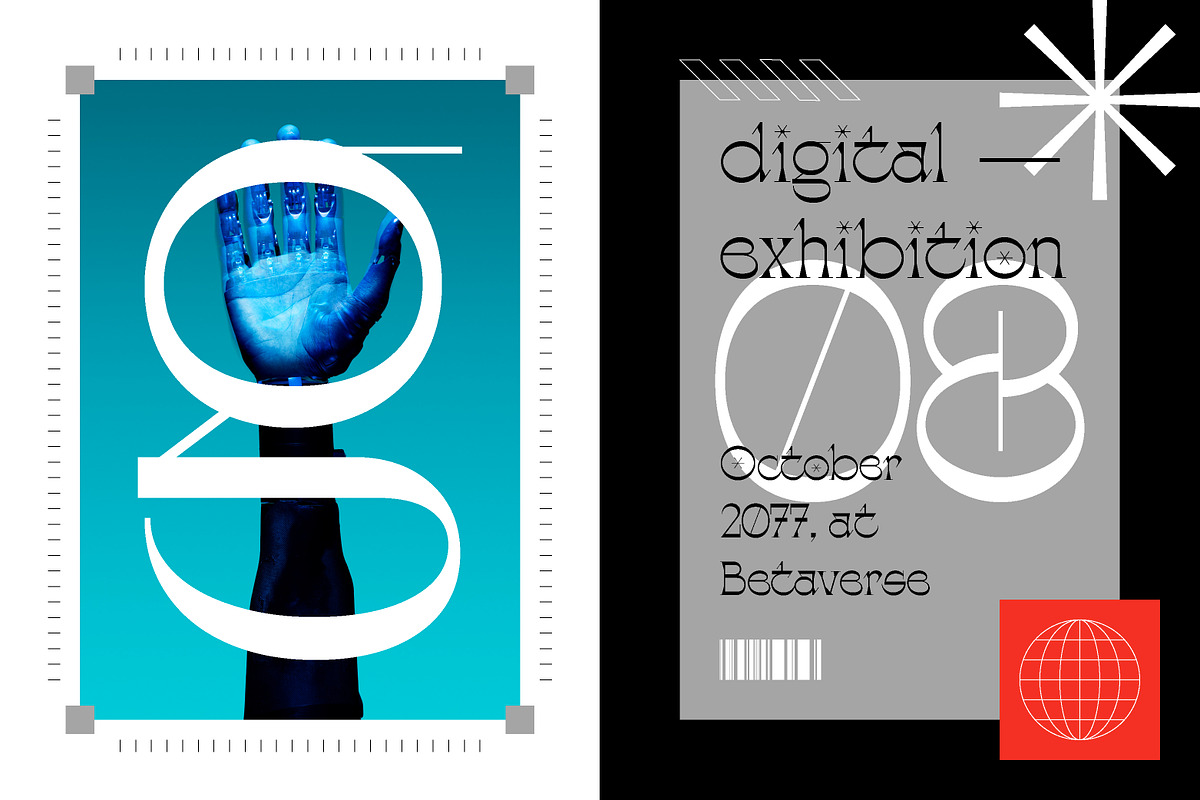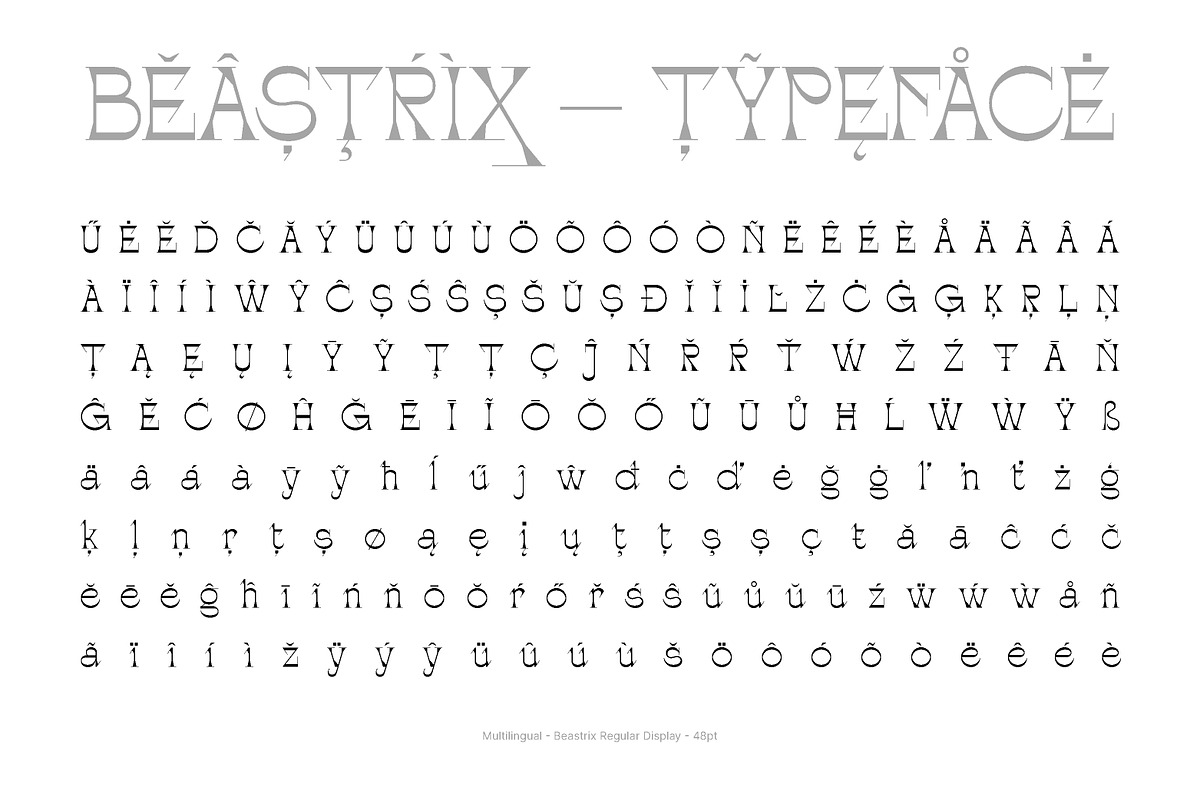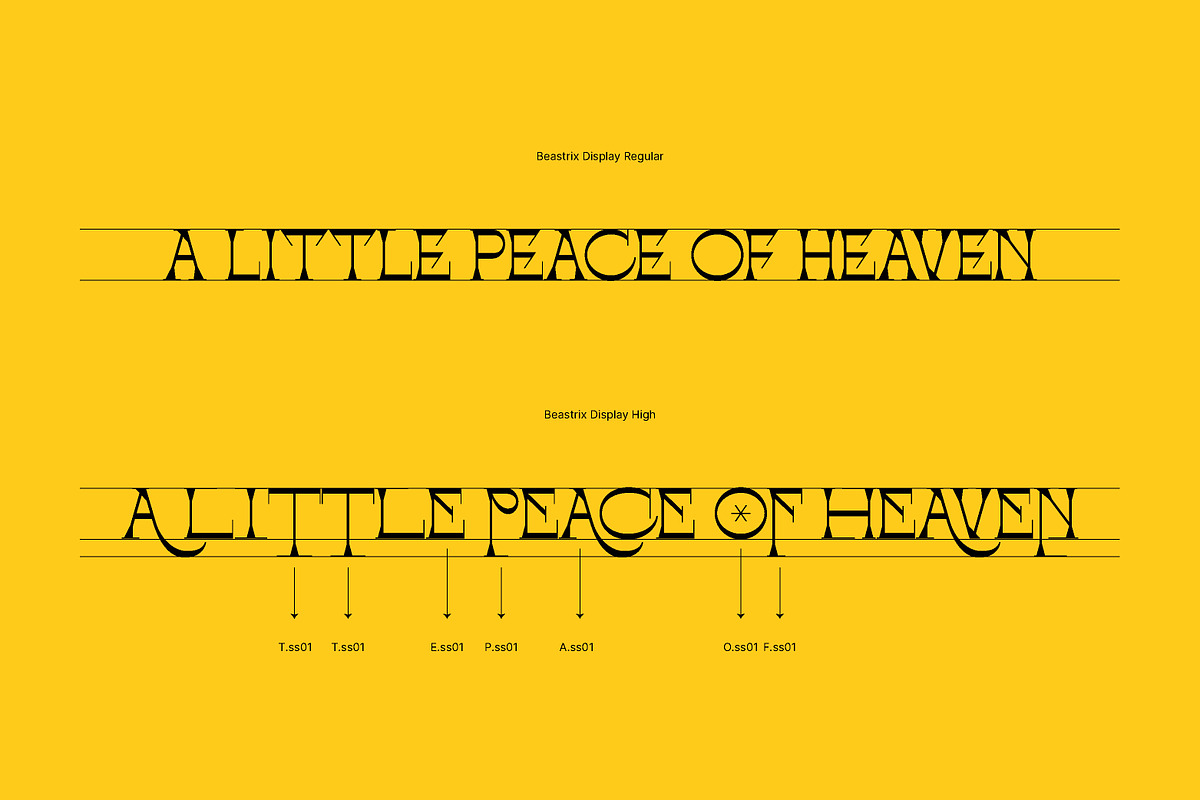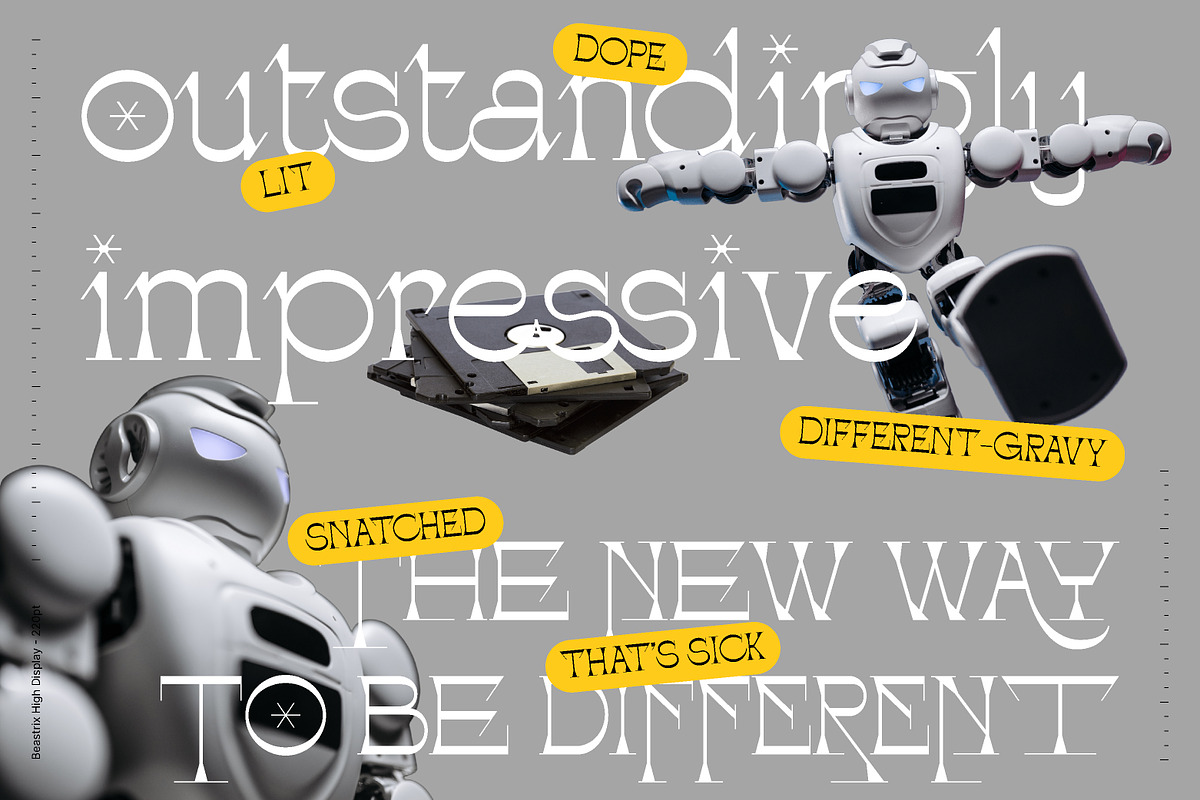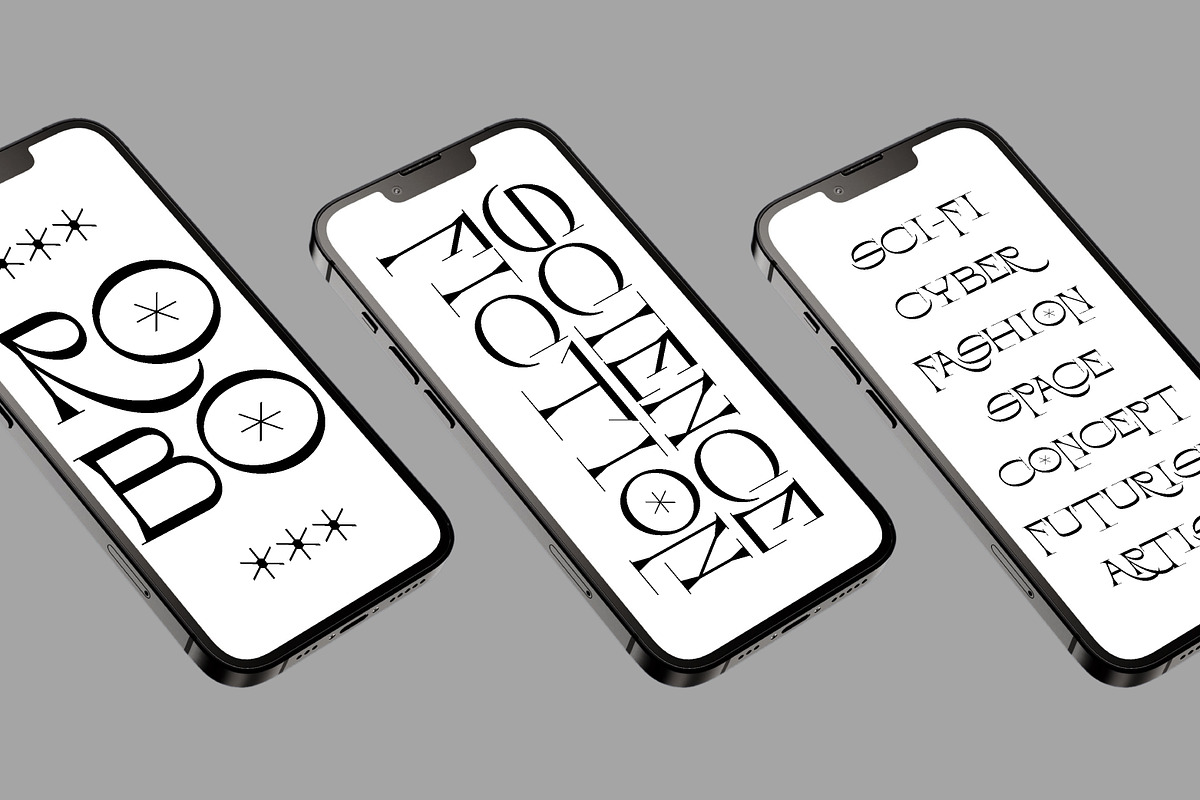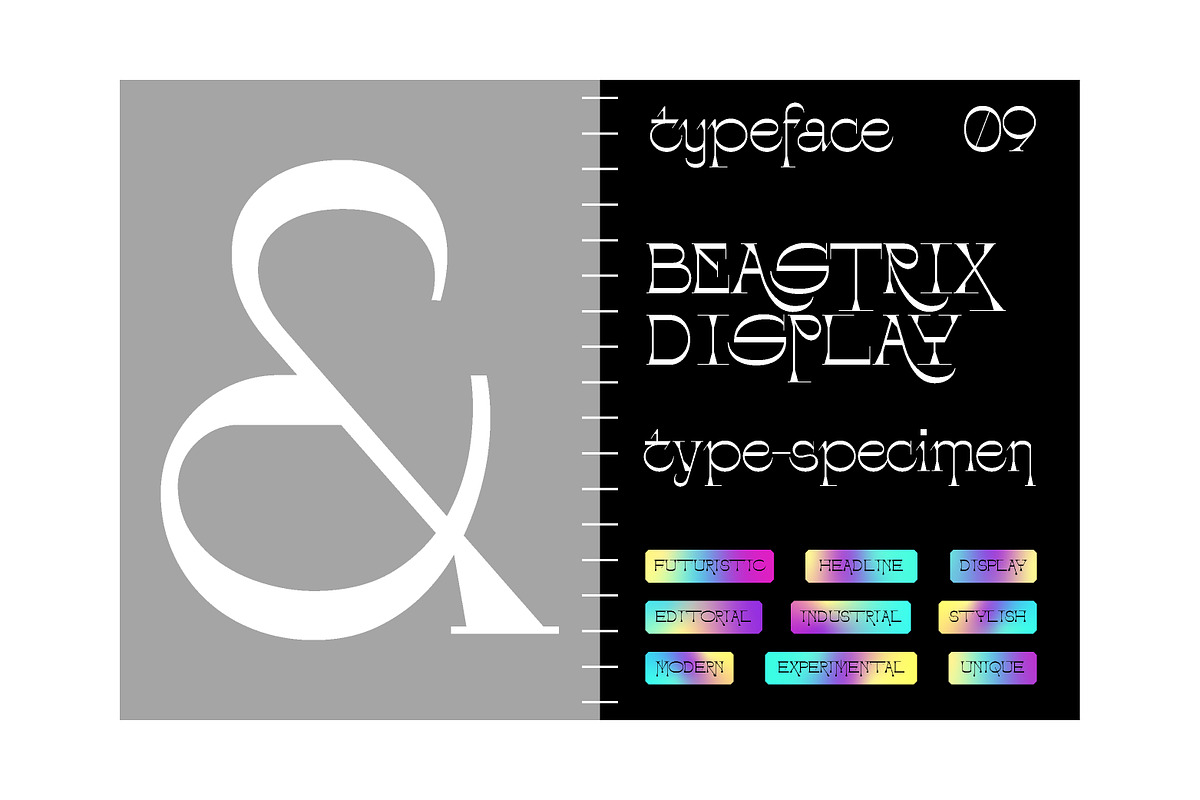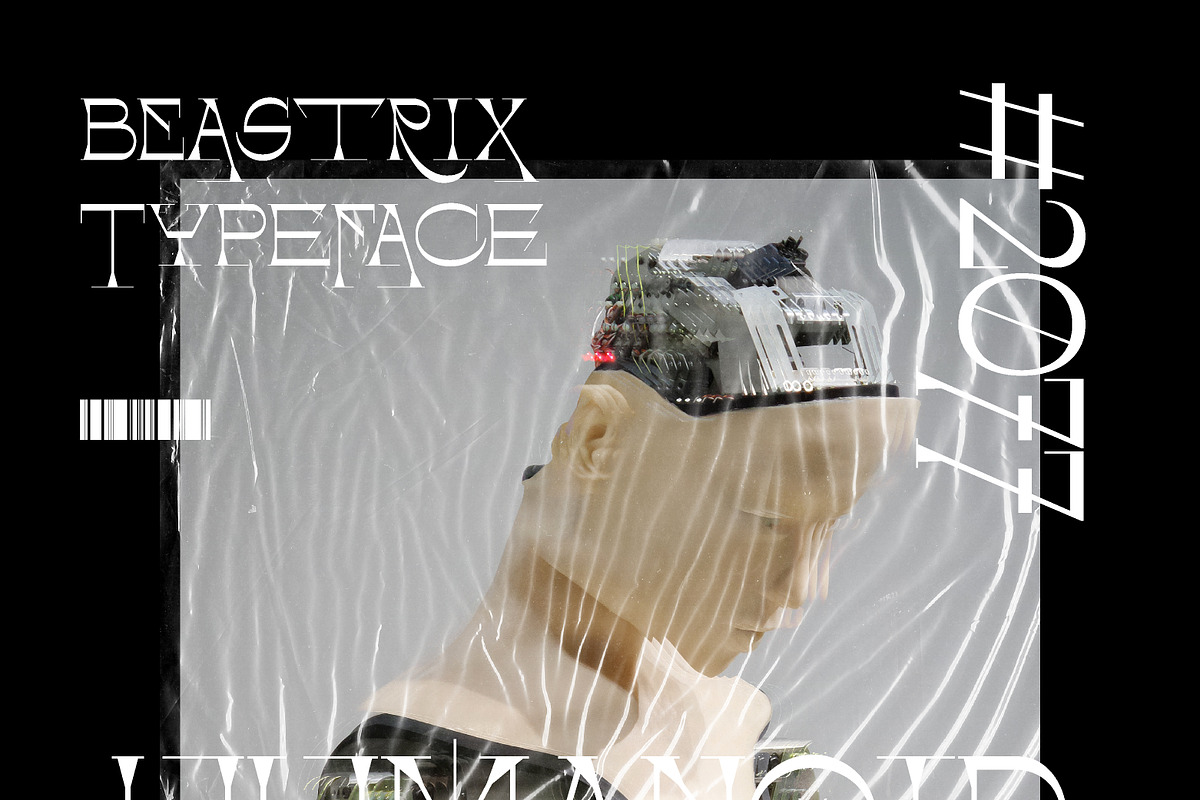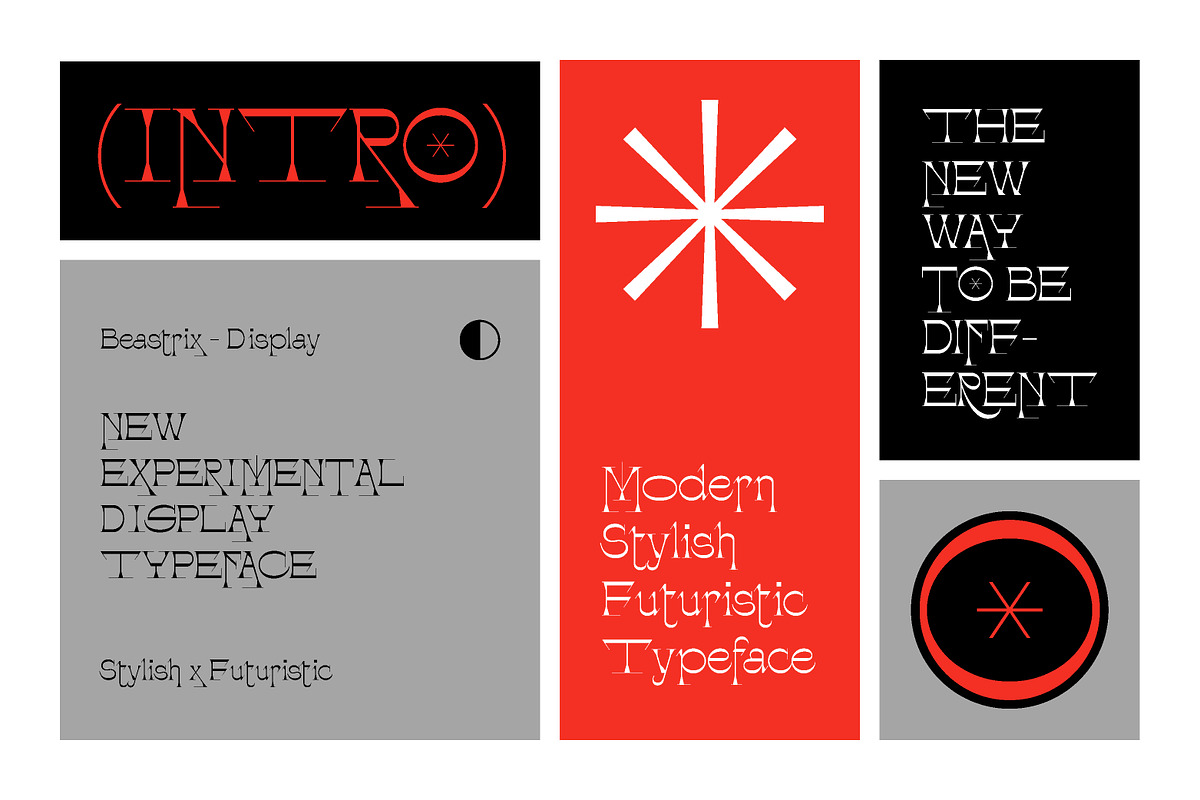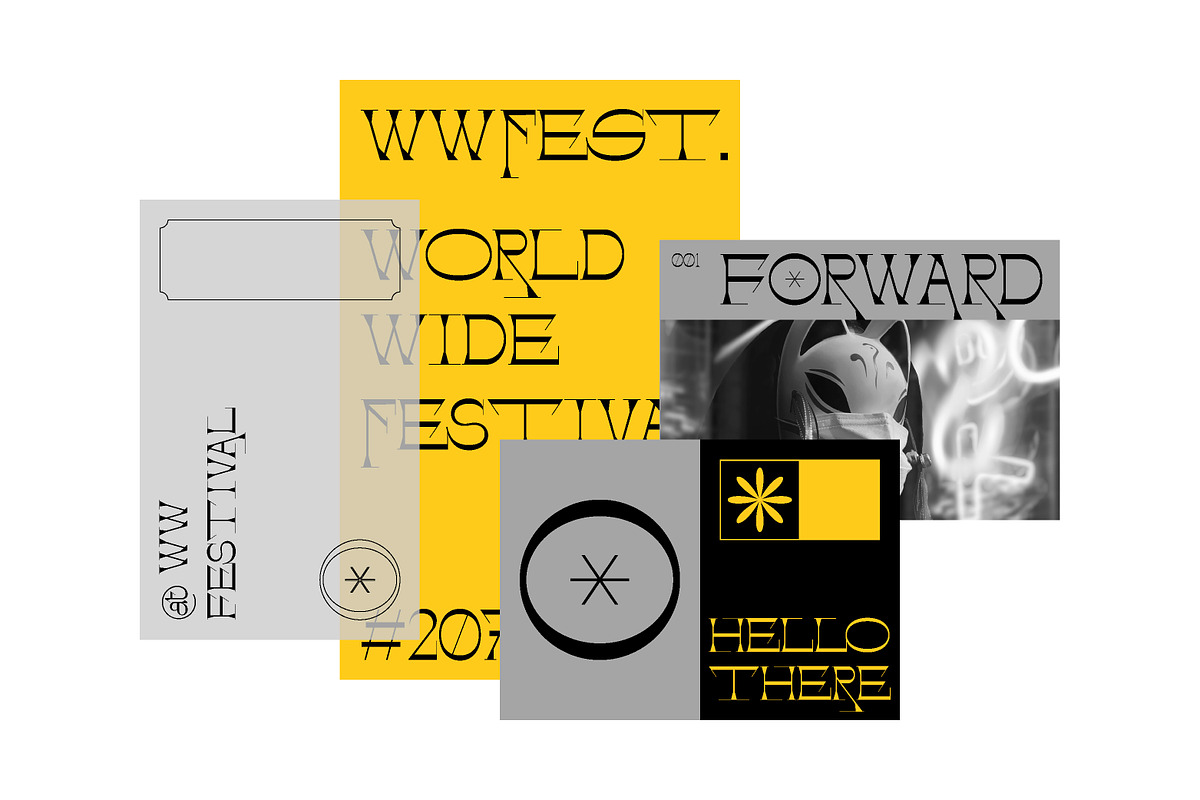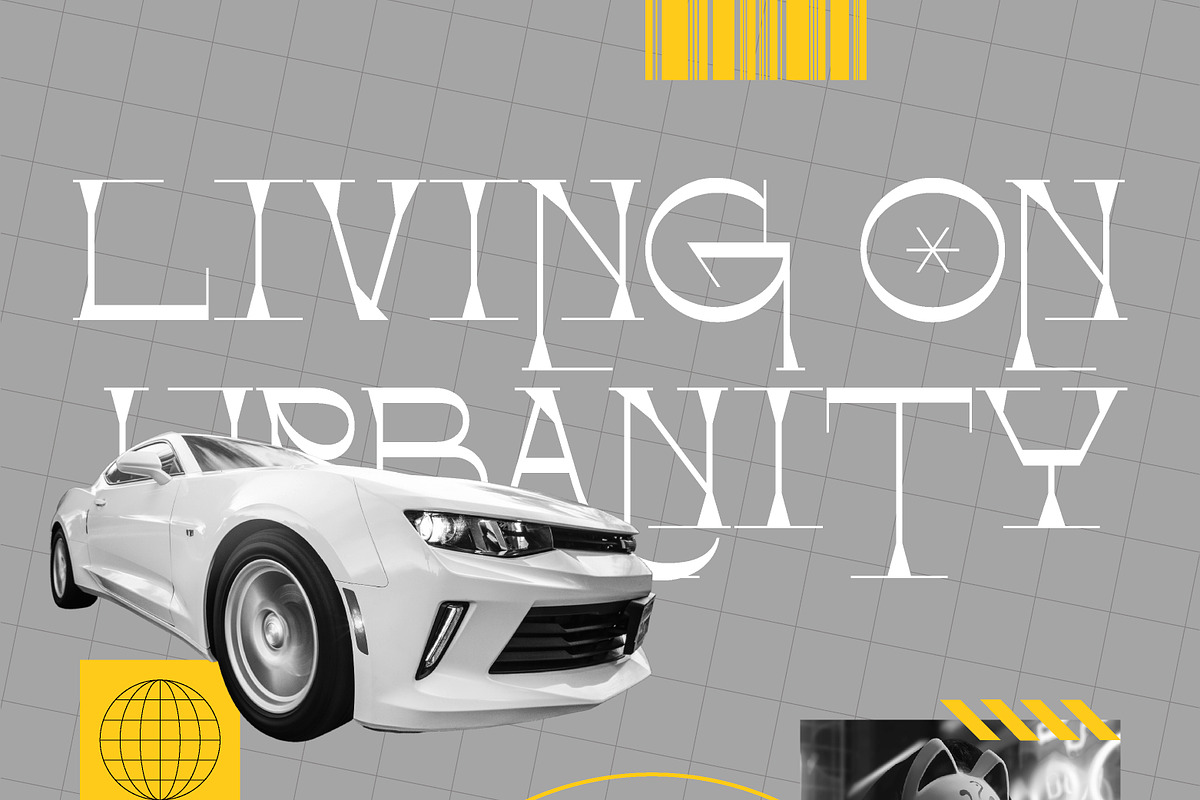
AO Beastrix - Display Typeface
AO Beastrix is a display typeface full of modern touch, bringing expressive futuristic era design into the 21st century.
The typeface comes in 2 styles, regular and high and a Variable Font to freely choose weights and proportions as needed. All contain character sets that includes approximately 400+ glyphs, support multilingual languages, numbers, punctuation and many alternatives.
This AO Beastrix can make your project perfect for headlines, editorial design, poster design, or other typographic compositions.